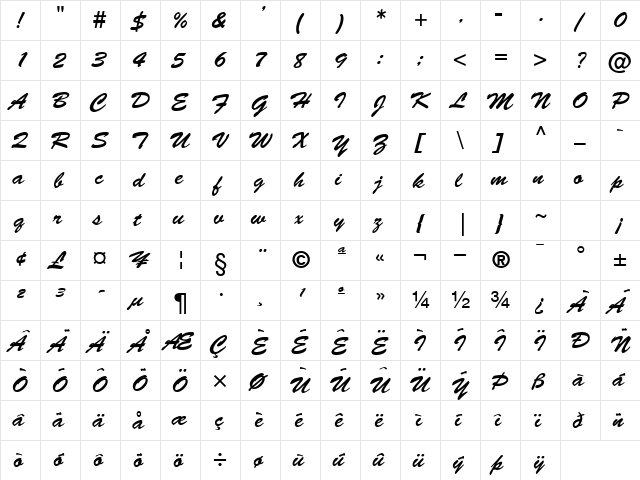
Banty Normal Font Preview
Banty Normal
Banty Normal Font Details
Design Context for Banty Typeface
Banty takes a measured approach to typography — its balanced proportions and neutral character make it a reliable workhorse for both digital and print work.